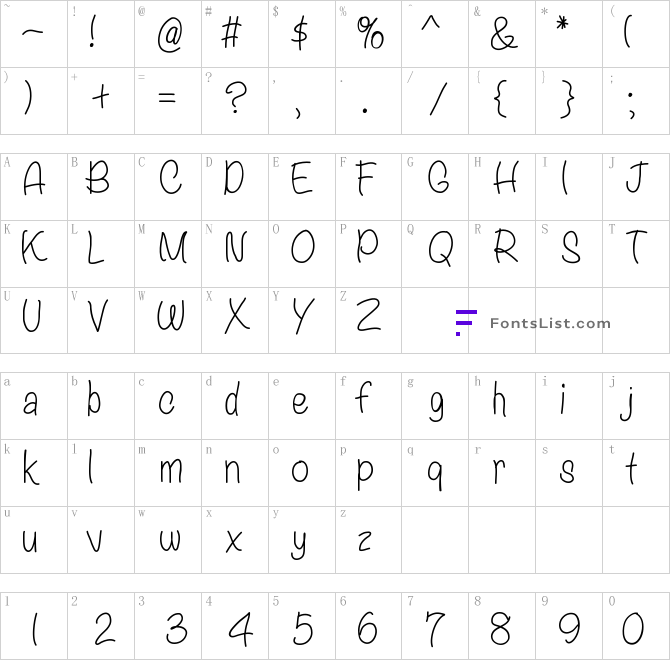
- Font Name:ASimpleLife
ASimpleLife.ttf is a very beautiful artistic font, ASimpleLife.ttf is widely used in the design and printing of various books and pictures,ASimpleLife.ttf has a strong visual impact,ASimpleLife.ttf is a commonly used font in newspapers, magazines and books, and is used in posters, e-commerce Poster design, store design, logo design, font design and other fields.ASimpleLife.